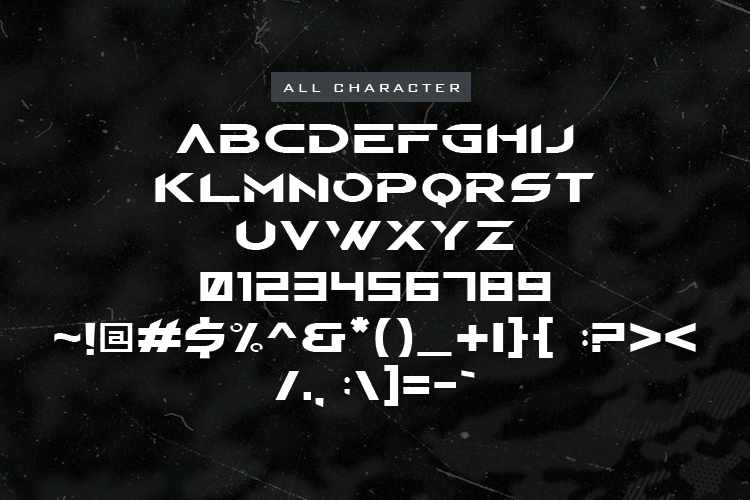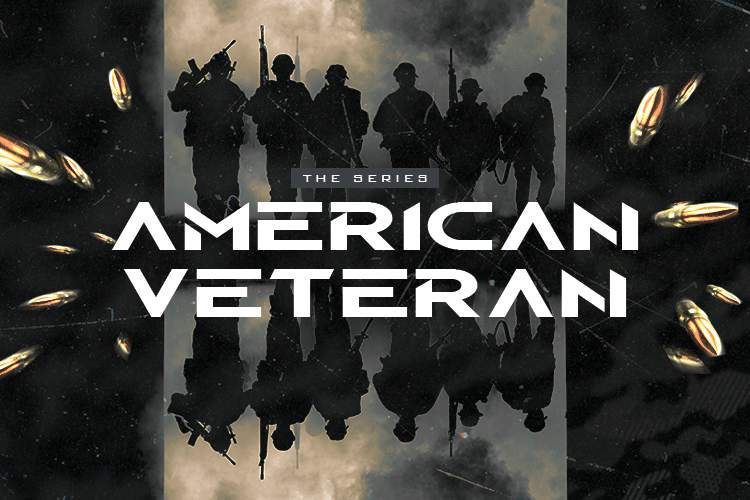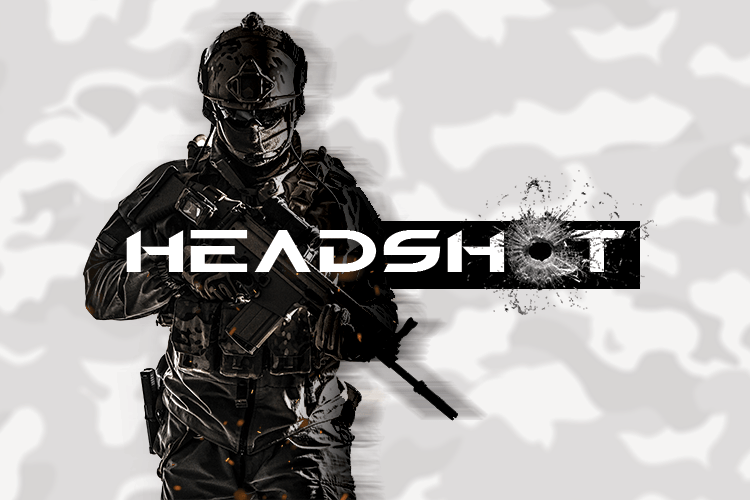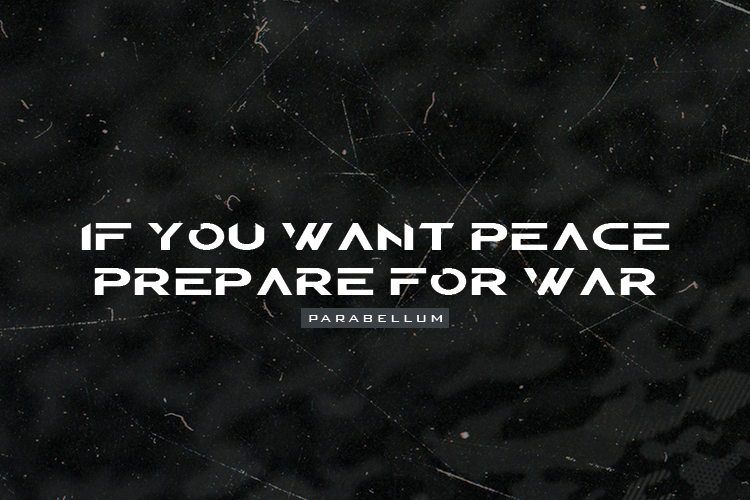
Modern Warfare Font is cool Bold typeface you can customize it perfectly for your own design, use it to create logos, emblems, posters, games, movie tittle, book cover anything project with war survivor and gaming themes
Uppercase, numbers, punctuations ;
Opentype features (Stylistic and Contextual alternates, Standart and Discretionary ligatures)
Languages: English, Danish, Dutch, Estonian, Faroese, Filipino, Finnish, French, German, Hungarian, Icelandic, Irish, Italian, Norwegian, Polish, Portuguese, Spanish, Swedish, Turkish.